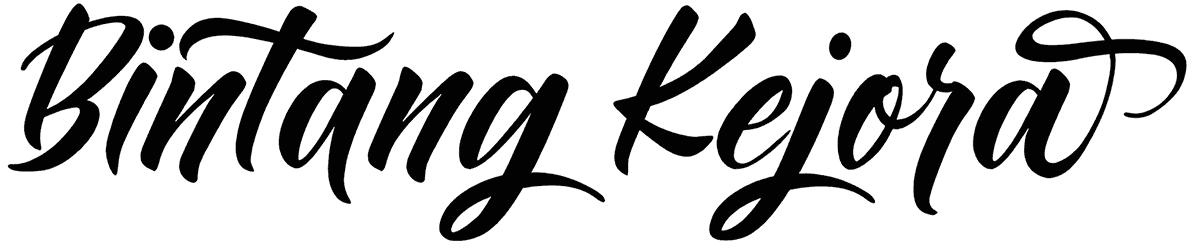
Bintang Kejora Font
Since the issue of naturality is prominent in any artwork of designers, script fonts are honored and warmly received, especially in projects that want to show compassion, art, and feminine spirit. Here, a calligraphy font named Bintang Kejora stands eagerly to lunch into your posters, greeting cards, invitations, and others. Take advantage of this free opportunity and “let the results speak for themselves”.